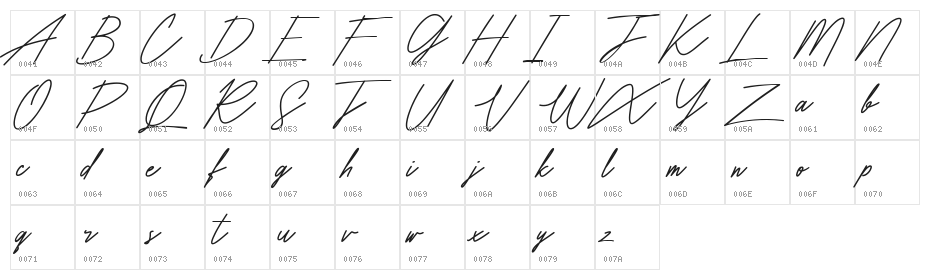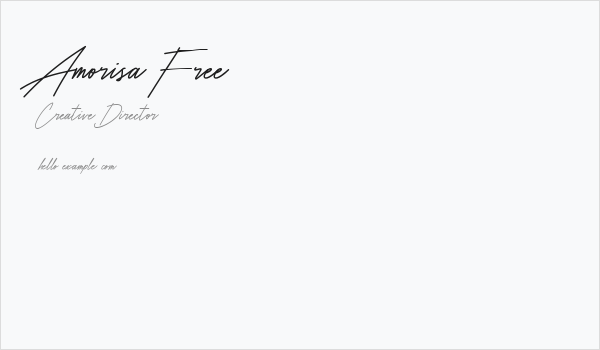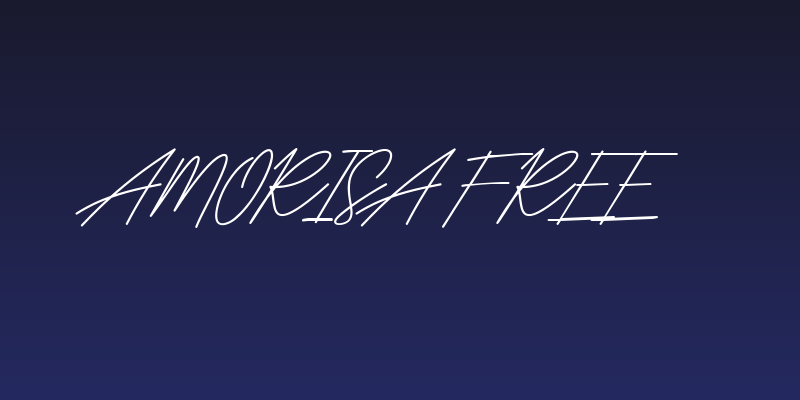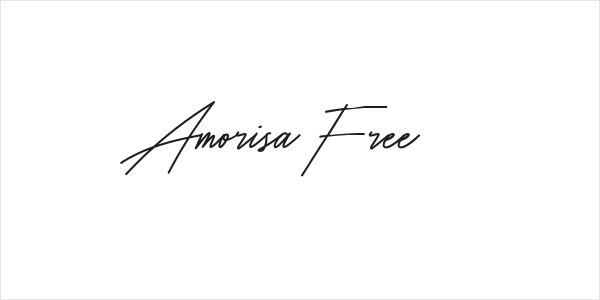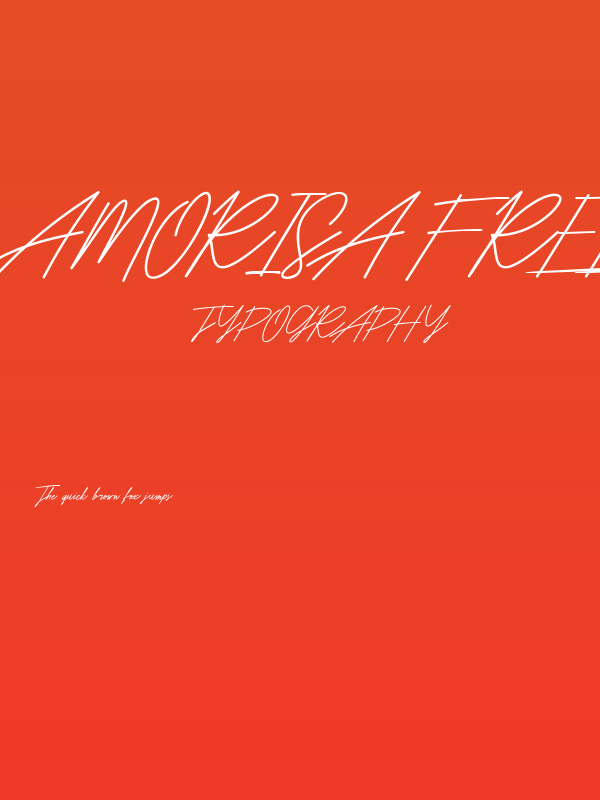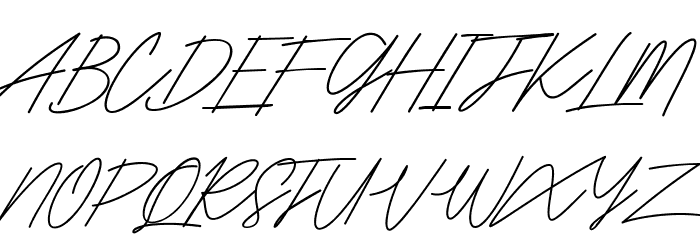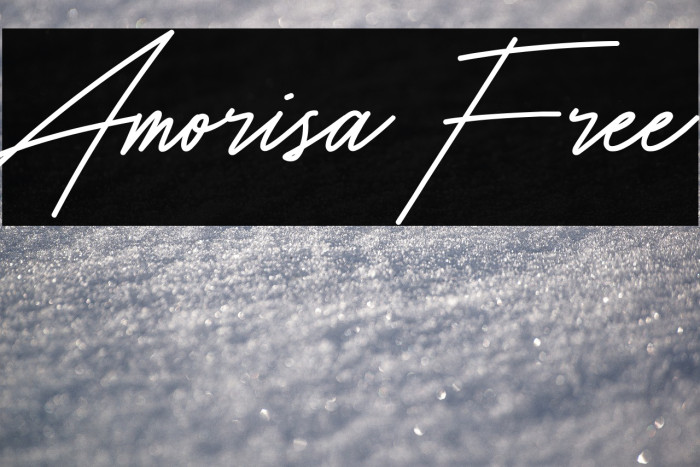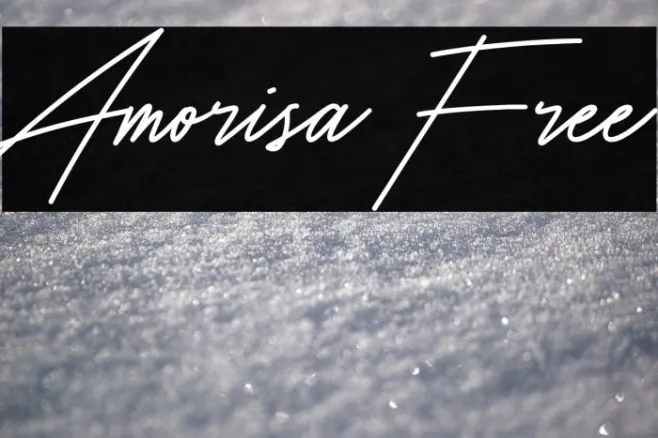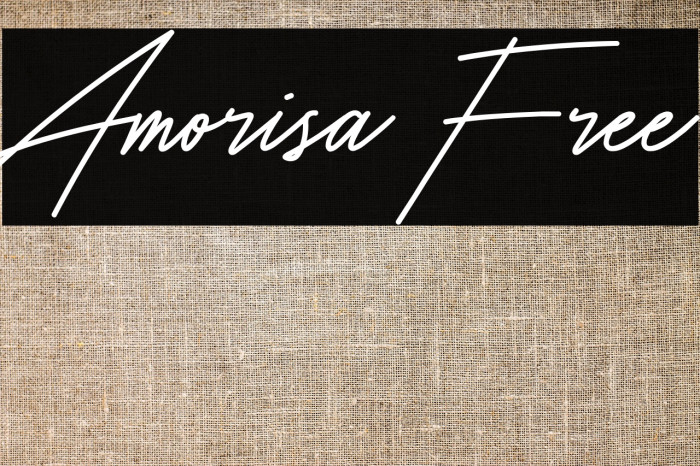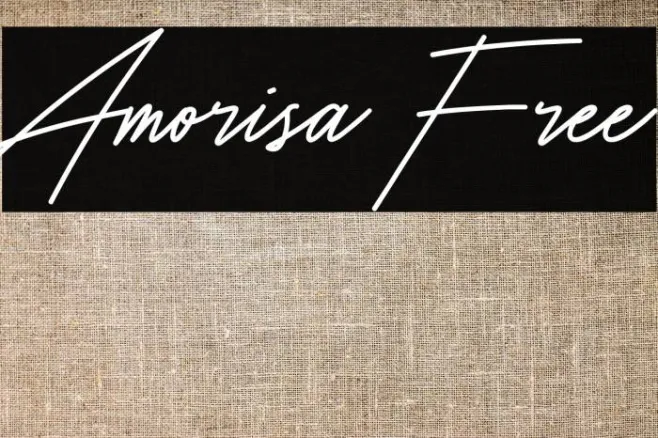
Amorisa Free Font
Amorisa Free Description
This font features a flowing, cursive style that mimics elegant handwriting. The uppercase letters are tall and slender, with a slight slant that adds a dynamic feel. The lowercase letters maintain a consistent flow, connecting smoothly to create a cohesive look. The strokes vary in thickness, providing a sense of movement and grace. This font is ideal for projects that require a personal touch, such as invitations, greeting cards, or branding materials that aim to convey sophistication and warmth.
| Overall Style | Elegant, Handwritten |
| Use Case | Logos, Invitations, Greeting Cards |
| Proposed Projects | Ideal for wedding invitations, personal branding, greeting cards, and elegant logos. |